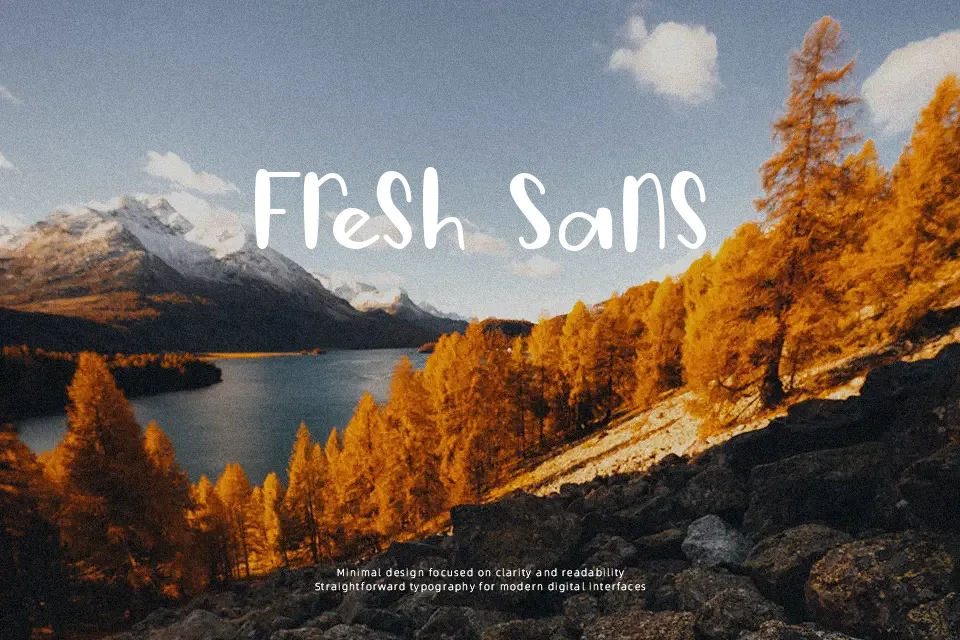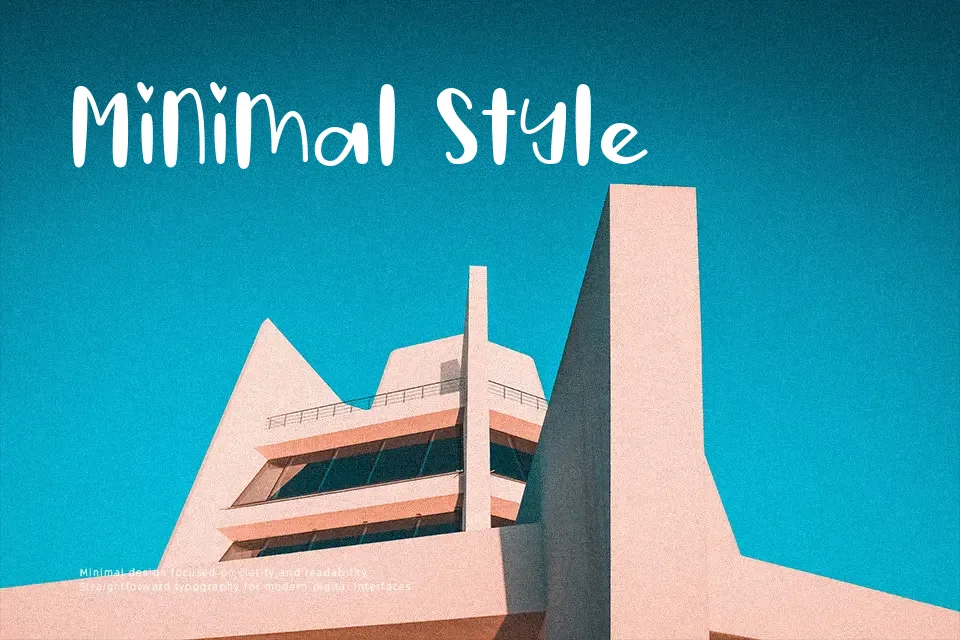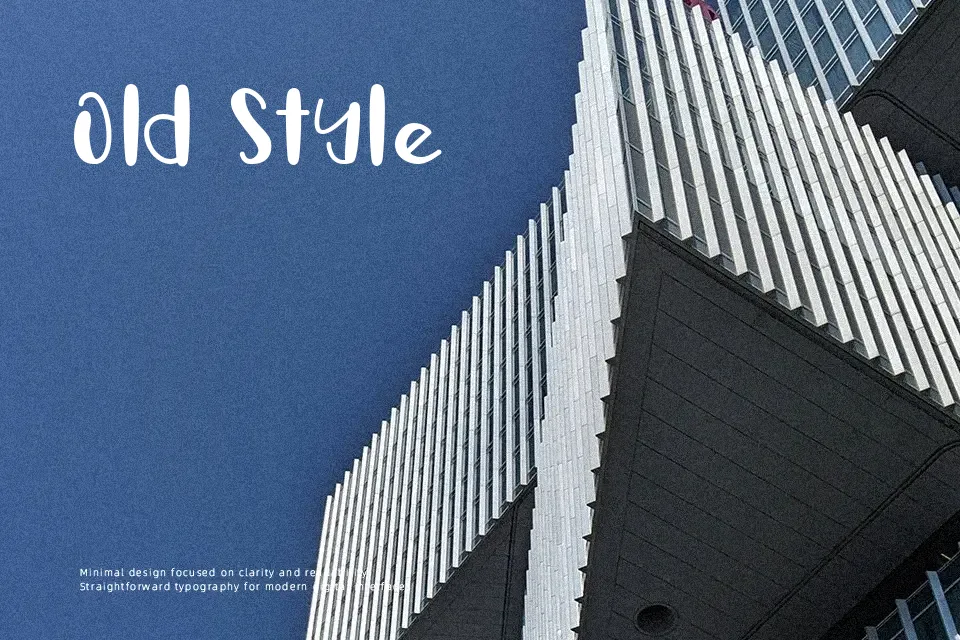
Stitching Of Children Font
Stitching Of Children Font pairs irregular outlines with relaxed, organic proportions to create a warm, handcrafted aesthetic. The letterforms showcase thick strokes with gentle curvature and moderate contrast, establishing a playful rhythm across wide display compositions. Balanced character spacing helps maintain distinction in titles, though the deliberate structural asymmetry naturally reduces reading comfort across continuous paragraphs. Consistent stroke weight ensures strong visibility in storybook headers, creative packaging, and school event banners. However, the exaggerated decorative quirks cause small captions to lose clarity, making the design ill-suited for dense technical text or compact UI labels.
Best For: children’s book covers, toy packaging labels, school event banners, craft workshop posters
Not Ideal For: long paragraph text, mobile interface labels, corporate annual reports, dense spreadsheet tables
Perfect for advertising, headline, and kids, with a creative and cartoon style.